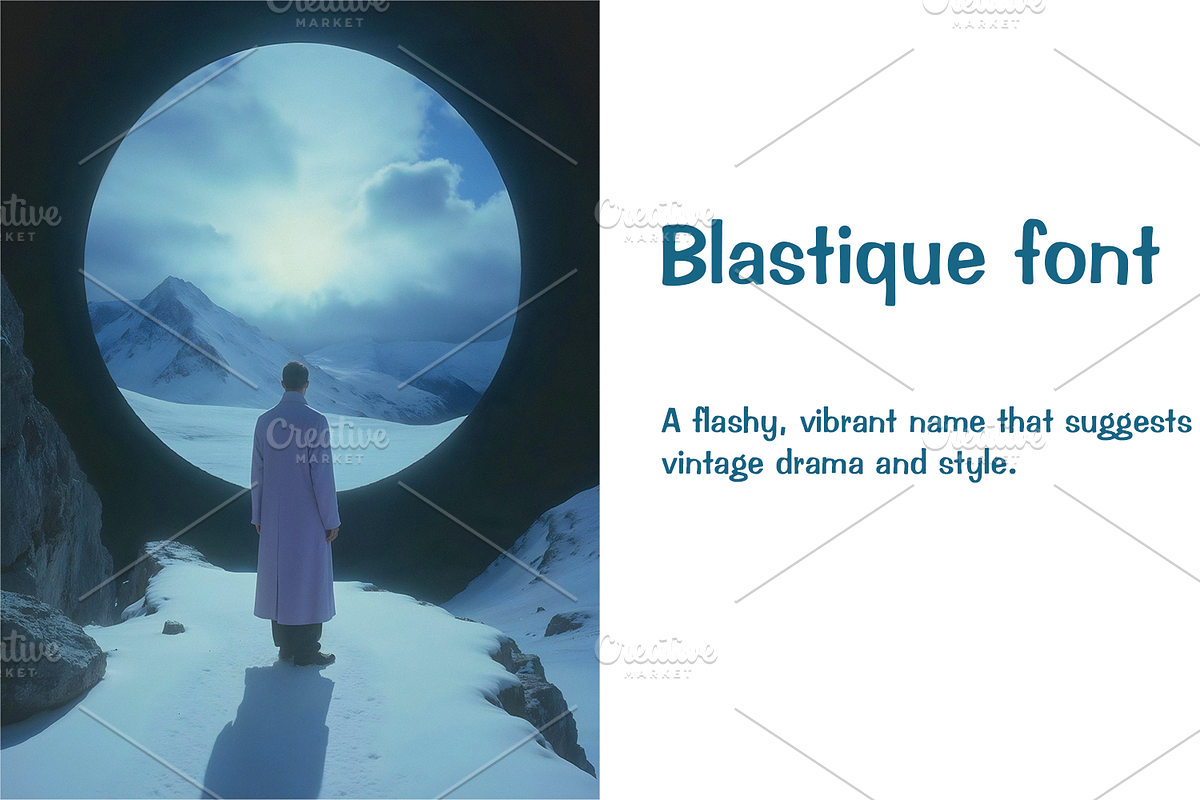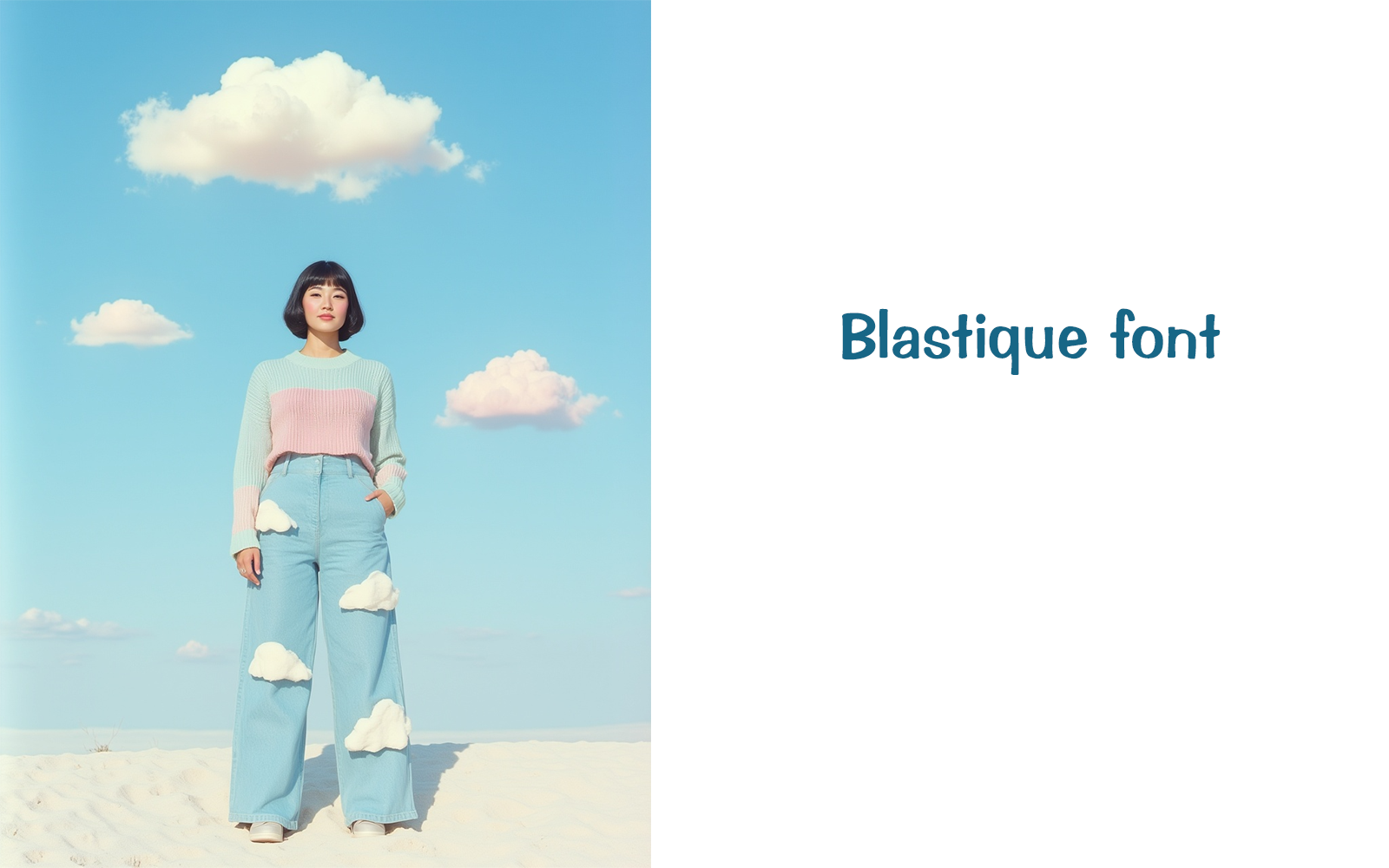
Loud. Bold. Unforgettable.
Meet Blastique the typeface that makes every headline roar. With vintage-inspired lines and a bold, condensed silhouette, Impress brings cinematic flair and visual power to your designs. Ideal for posters, promotions, logos, or any project where you need to stop the scroll and own the moment.
Step into the spotlight — and let your words Blastique.